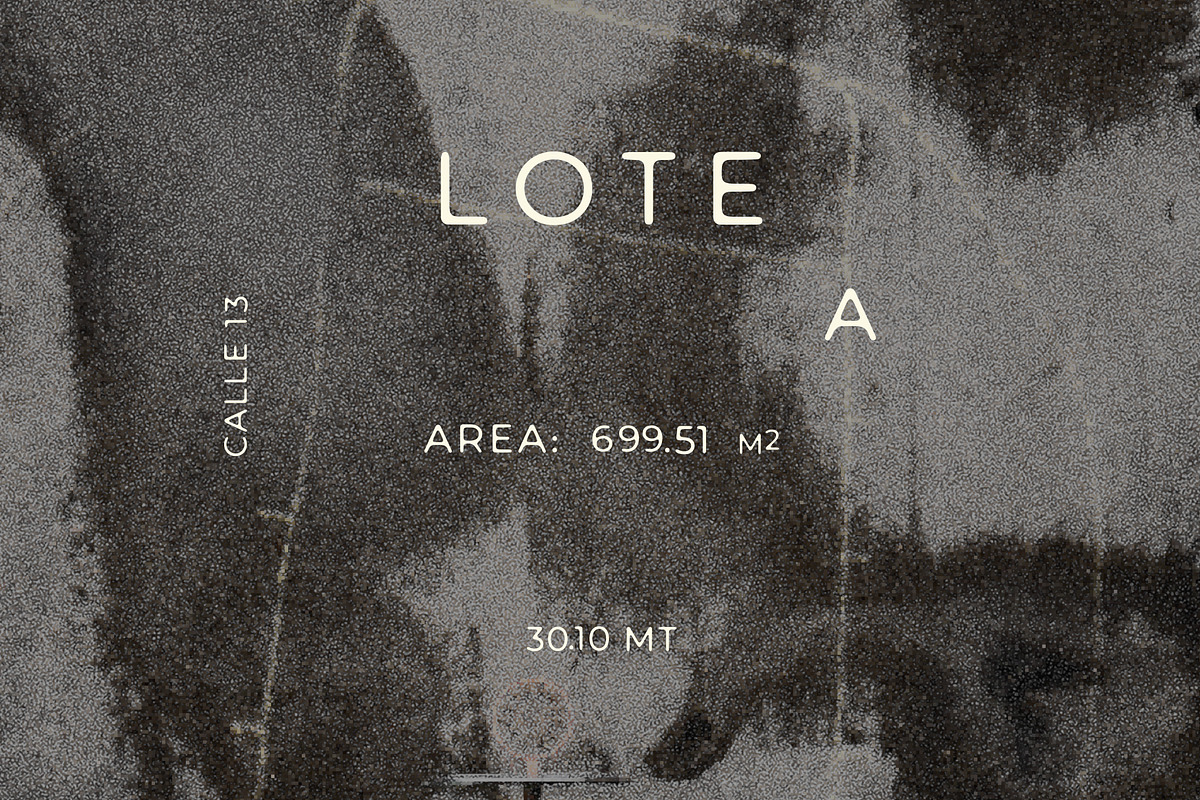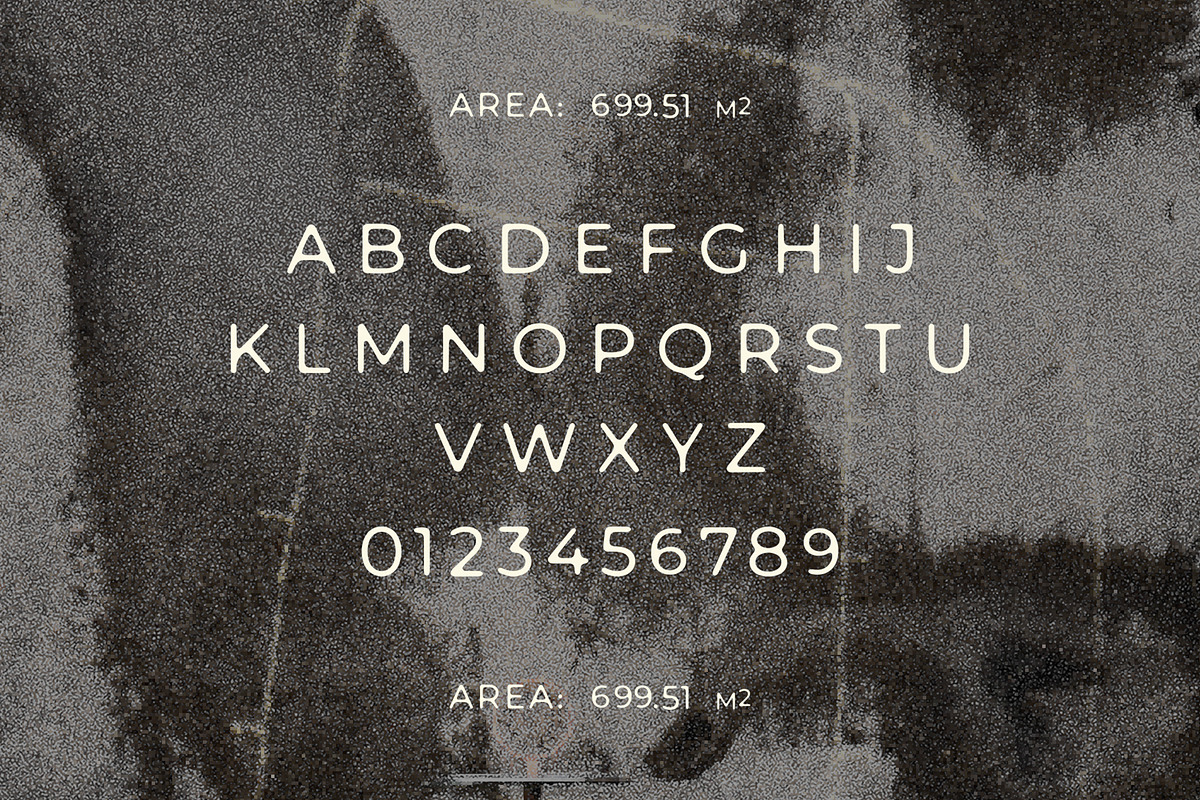
LOTE Font
Lote draws inspiration from vintage land surveying sketches and property sale markings commonly found in Mexico. These hand-drawn diagrams were traditionally used to indicate plot sizes, boundaries and measurements, often appearing on simple signage or technical sketches related to land sales.
The visual language of these markings became the foundation for the typeface. The letterforms were carefully reconstructed and refined to create a clean display font that maintains the character of these utilitarian graphics while adapting them for contemporary design use.
Lote is a fully functional all caps font including numbers and punctuation. Its balanced and distinctive forms work well for branding, editorial layouts, packaging, posters, logos and signage, adding a subtle vintage and architectural character to modern design projects.